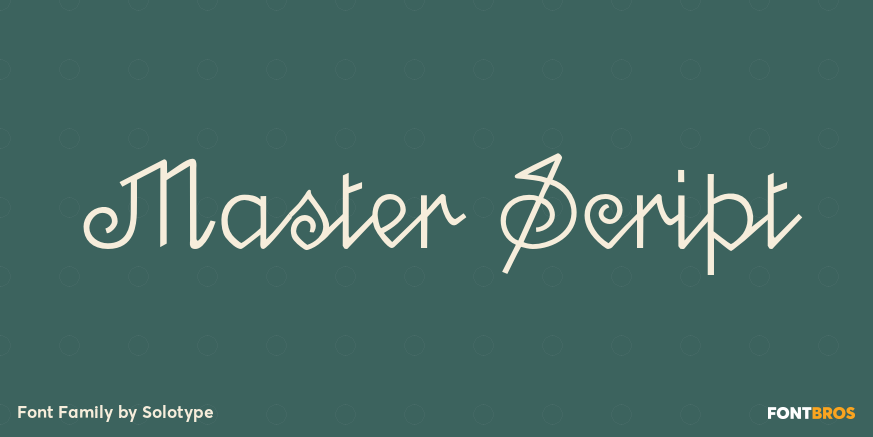
HomeFont BrosHistoricalMaster Script Historical Master Script FacebookXPinterestWhatsApp 1 of 1 About Master Script An unusual angular vertical script. In late Victorian times it was seen mostly in advertising work, seldom in social stationery and announcements.  DOWNLOAD ON FONT BROSThis font is sold and delivered by Font Bros. Font Canyon may earn a commission if you buy through this link. People also explored Battista Font Colatera Font Romantis Momen Font Jungle Font Simple Handmade Font Butterfly Font Makasih Font Railina Font Runny Font 519 0 TagsMaster Script Font Previous articleGrand CruNext articleComicrazy LEAVE A REPLY Cancel reply Comment: Please enter your comment! Name:* Please enter your name here Email:* You have entered an incorrect email address! Please enter your email address here Website: Save my name, email, and website in this browser for the next time I comment. Personal Use Free Deco Neue Wilde Personal Use Free Read more about this font Einstaint Personal Use Free Read more about this font Baby Magnolia Personal Use Free Read more about this font England Personal Use Free Read more about this font BLOG How to Install and Use Fonts on Windows, macOS, and Web Projects How to Install and Use Fonts on Windows, macOS, and Web Projects Fonts are a crucial part of design and branding. Whether you’re designing a... The 10 Best Handwriting Fonts to Add Personality to Your Designs How to Cut Any Font on Cricut: Convert a Font to SVG (Free) Best Fonts for YouTube Videos: Make Your Thumbnails Stand Out